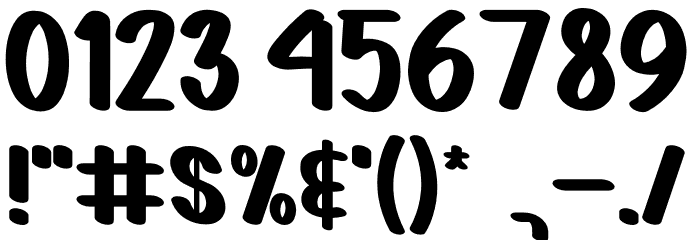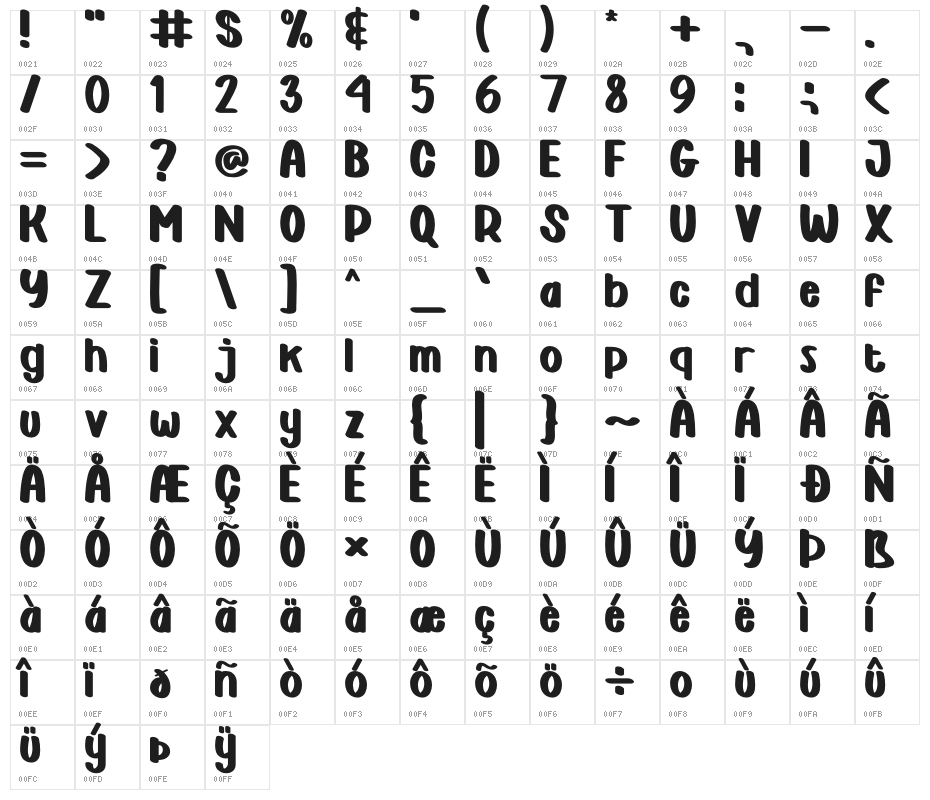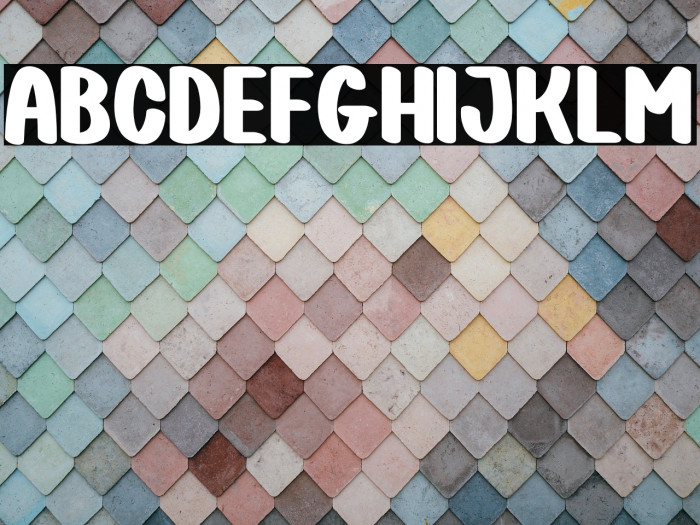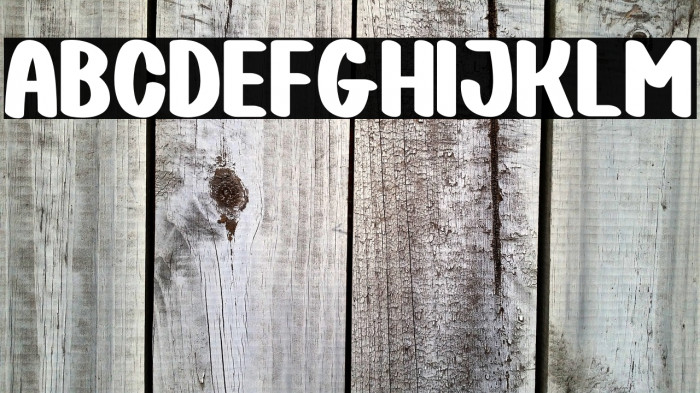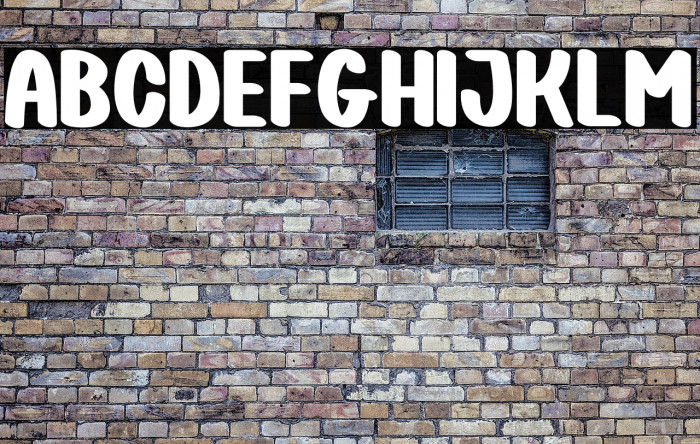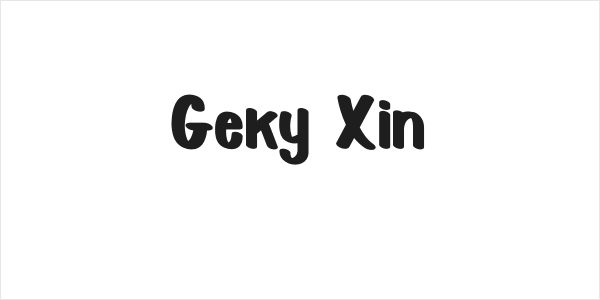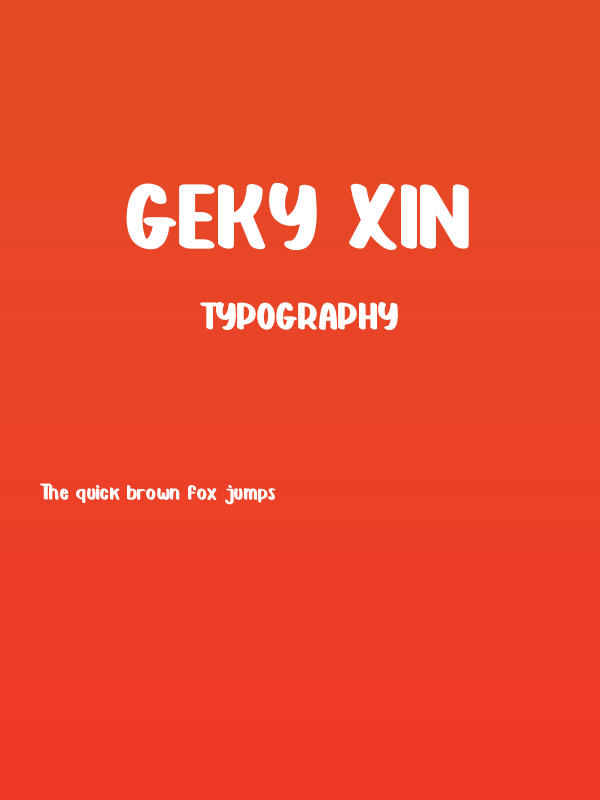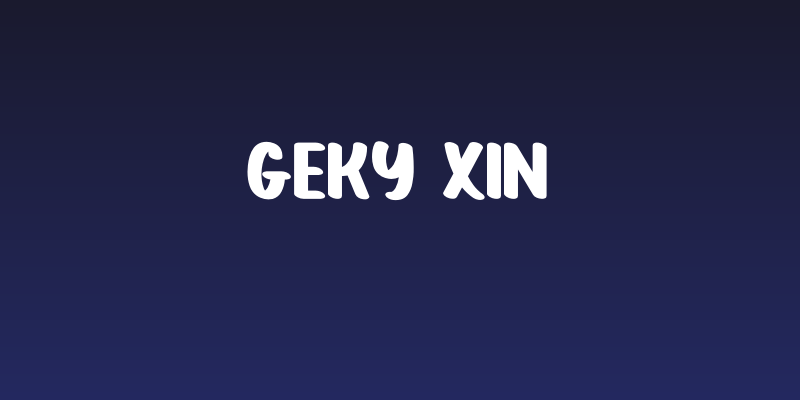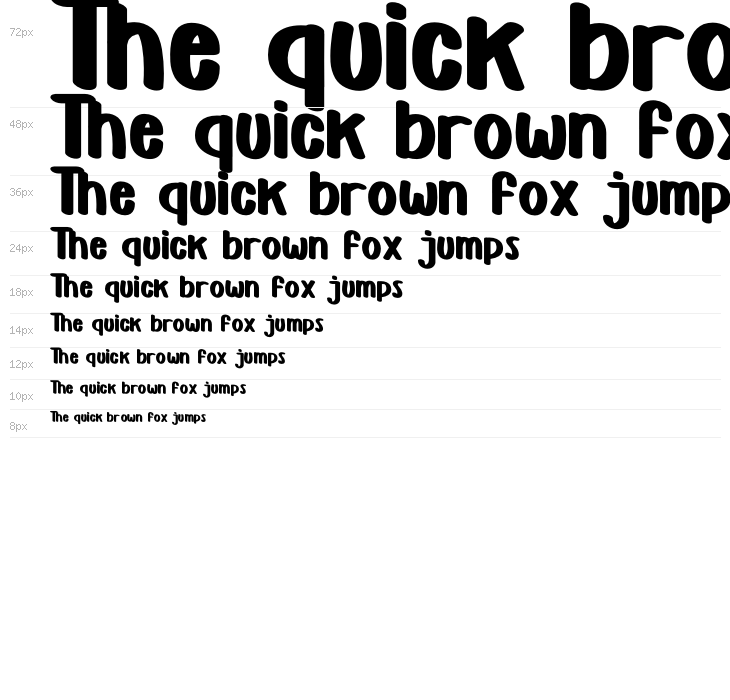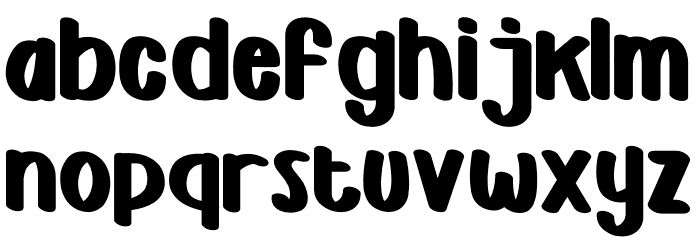
Geky Xin Font
Geky Xin Description
This font features a bold and playful design with rounded edges and a slightly condensed appearance. The characters are thick and uniform, giving a sense of strength and approachability. The uppercase letters are prominent and well-defined, while the lowercase letters maintain a consistent style with a touch of whimsy. Numbers are clear and easily readable, matching the overall boldness of the alphabet. Special characters are creatively integrated, maintaining the font's playful aesthetic. The font is well-suited for projects that require a friendly and inviting look.
| Proposed Projects | Ideal for children's books, playful branding, posters, and social media graphics. |